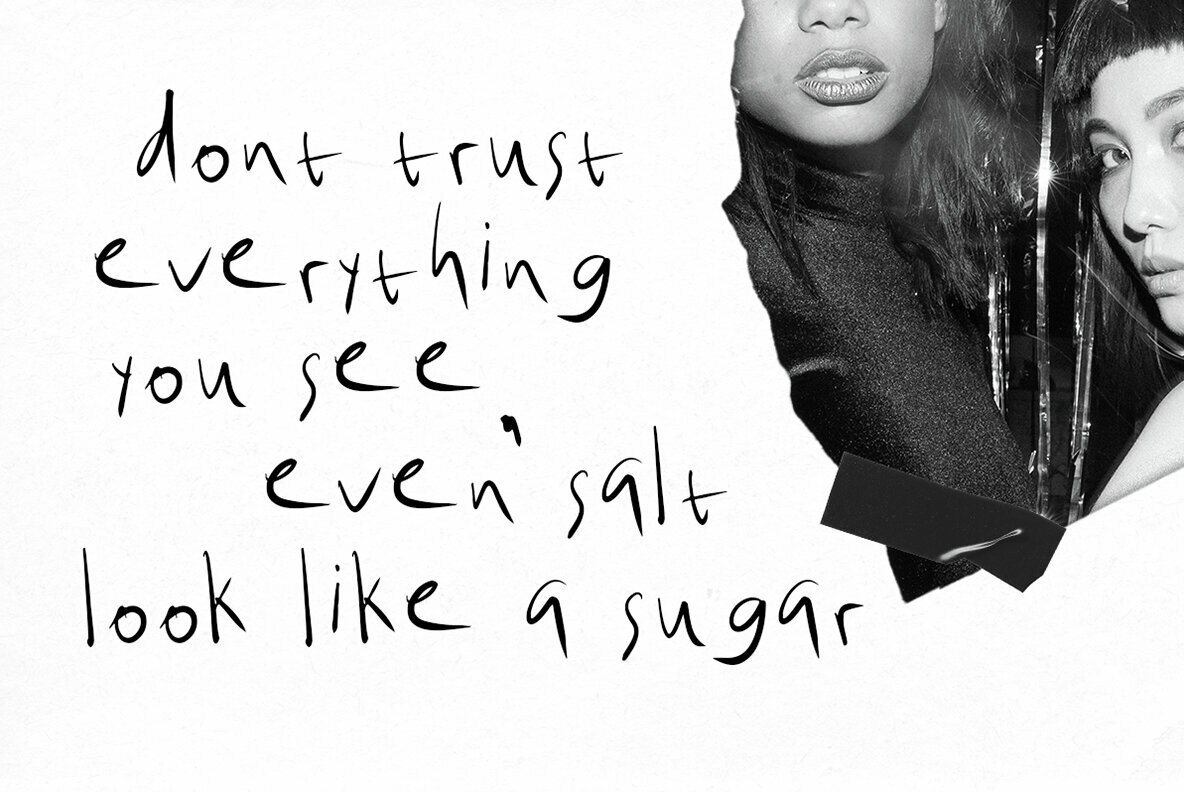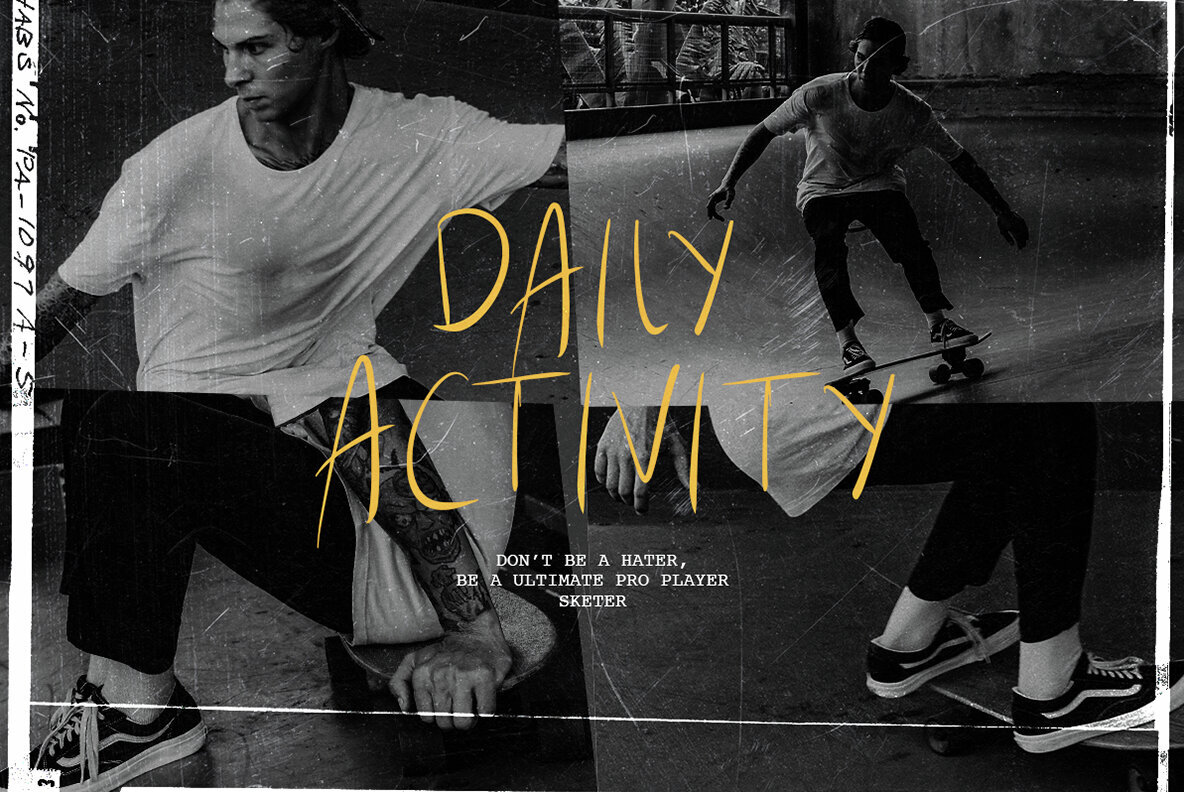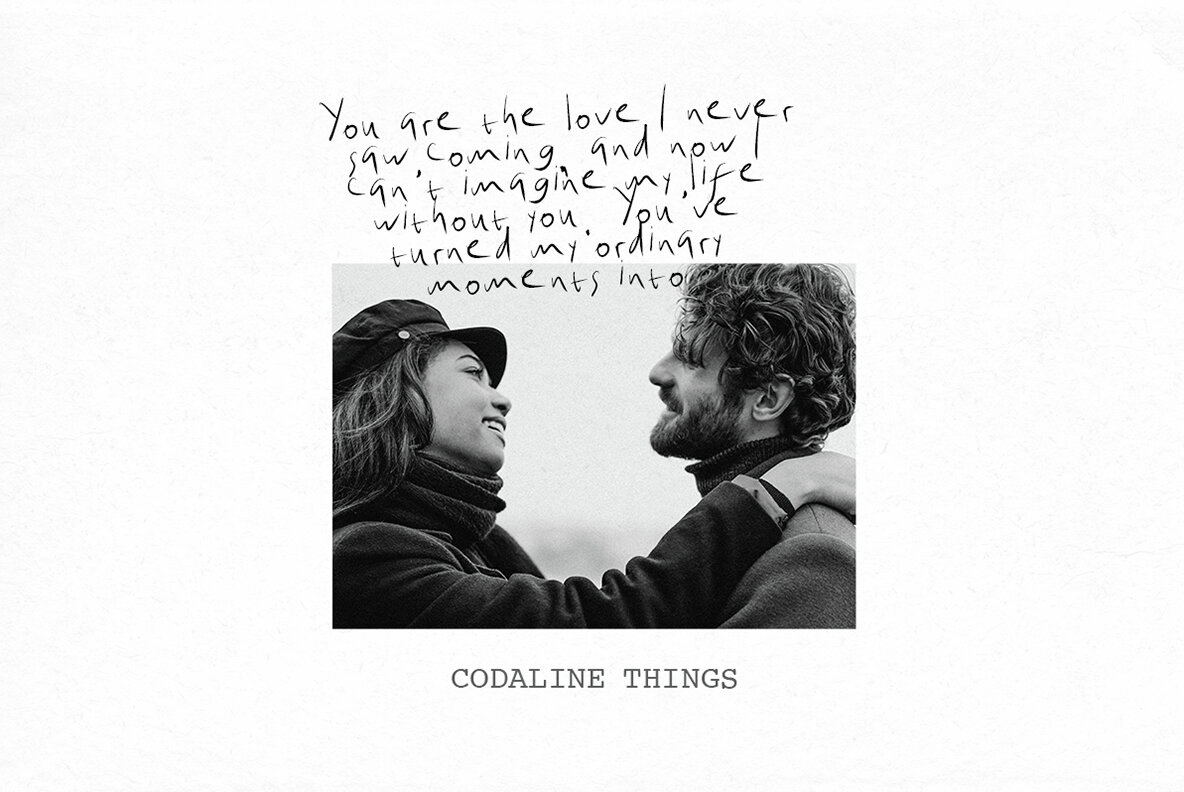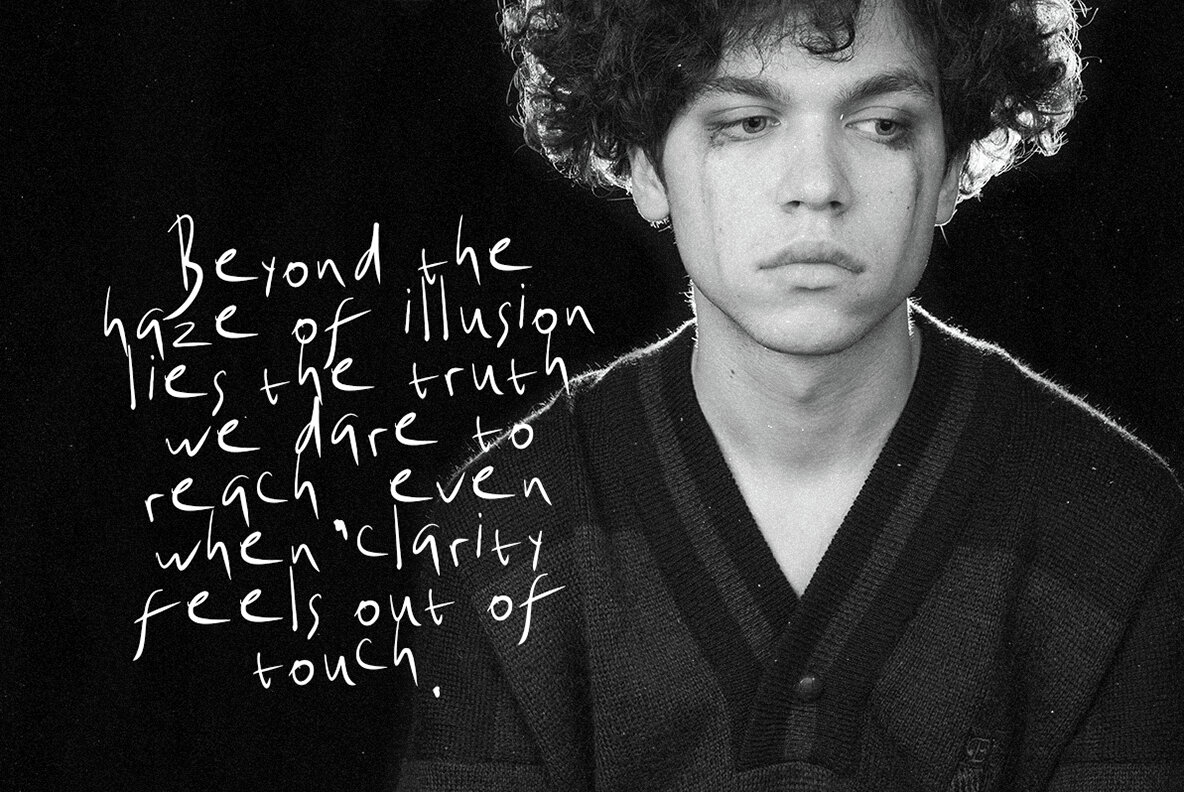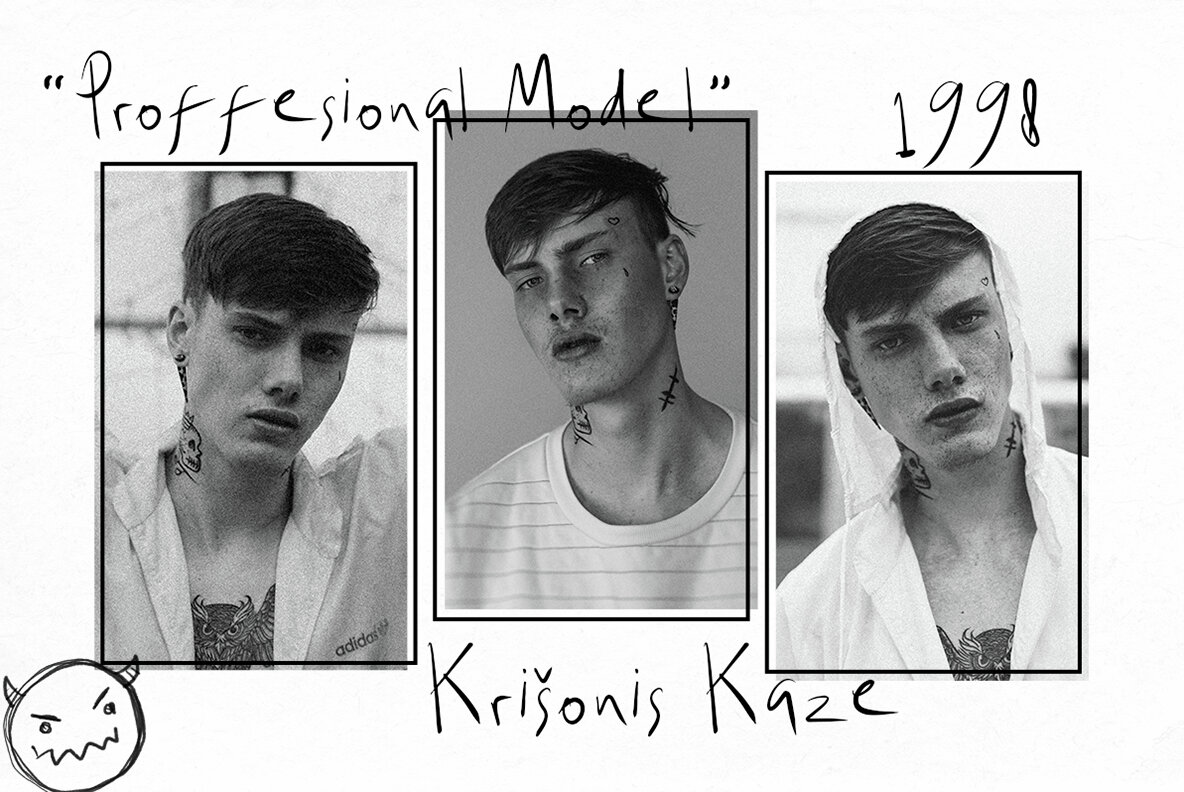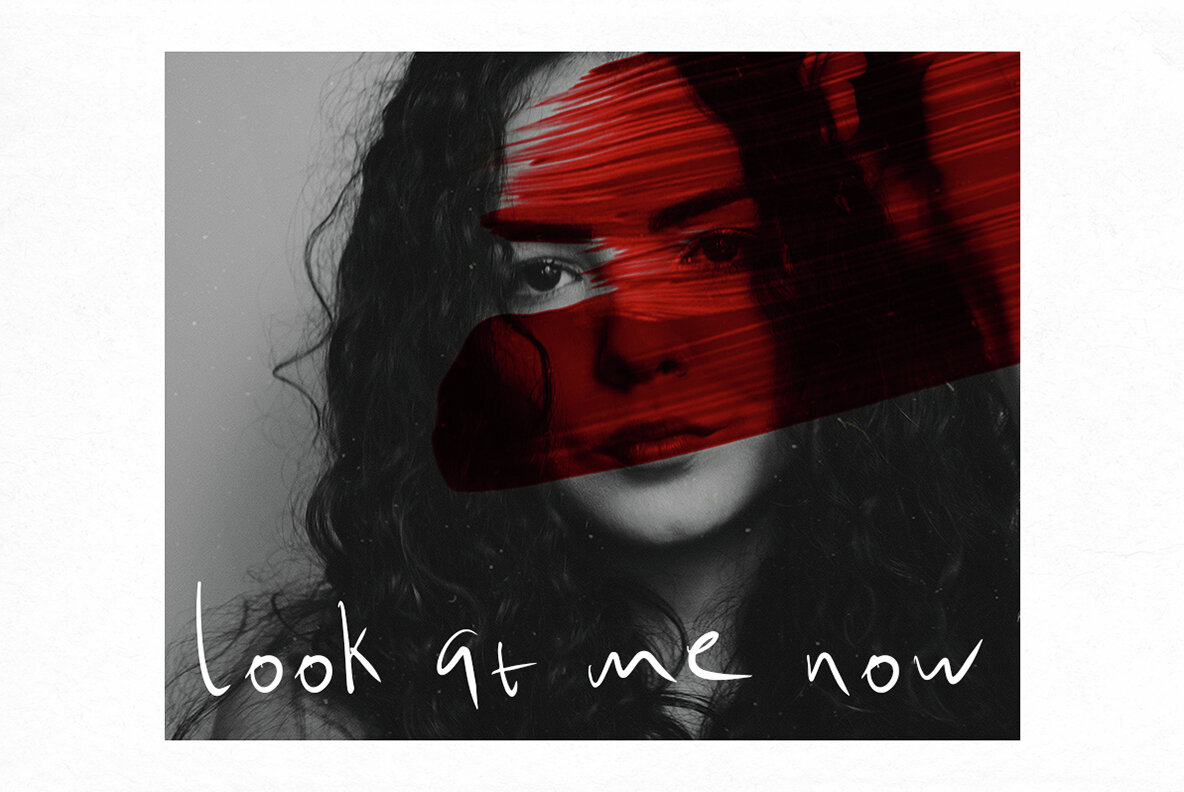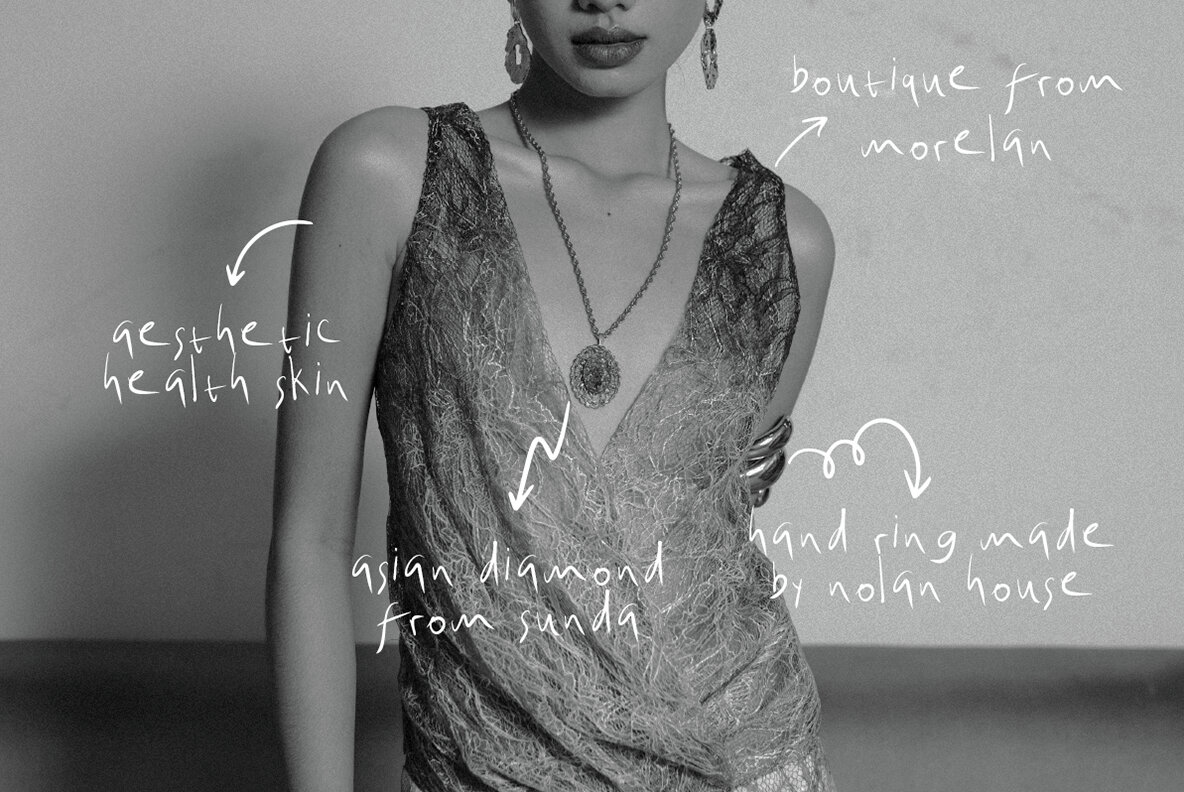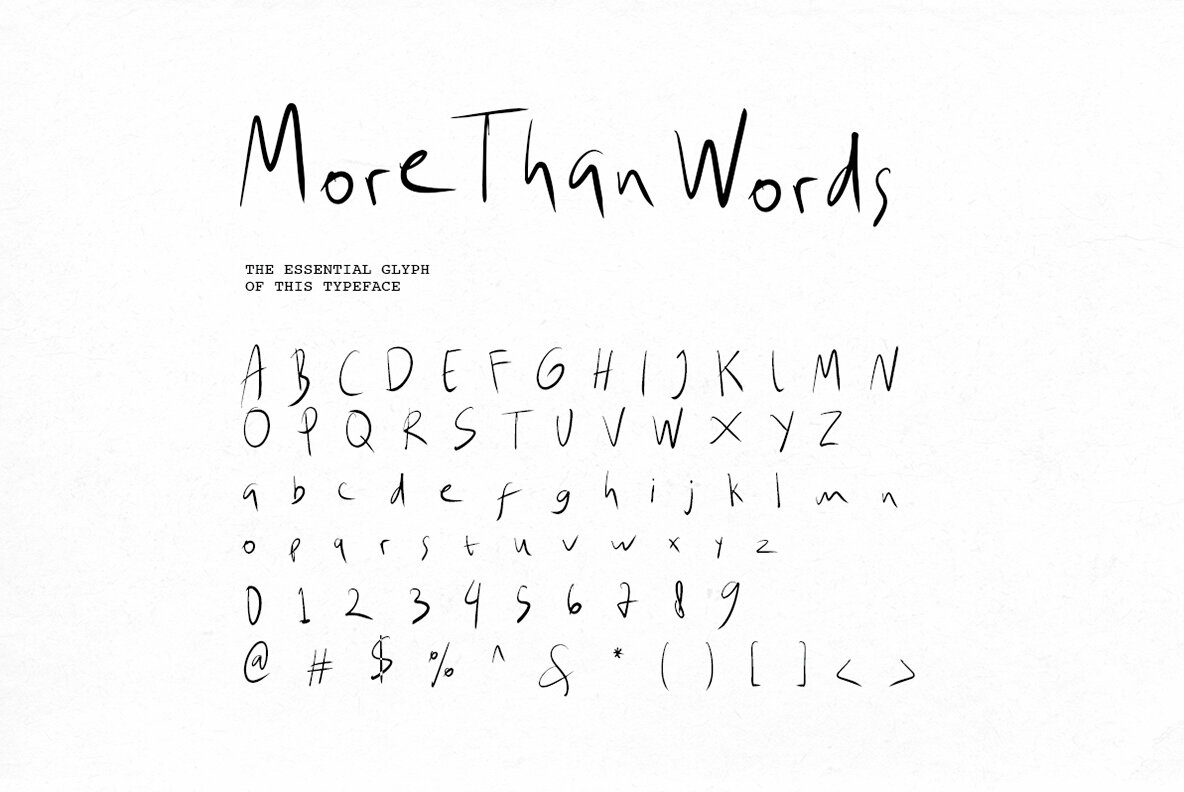
More Than Words Font
More than words Regular
More Than Words" is a handwritten font with a messy, grunge style, perfect for organic, natural, and experimental designs. Its raw and unpolished look brings authenticity to creative projects, adding a touch of boldness and character to any visual. Ideal for branding, packaging, and unique artistic expressions